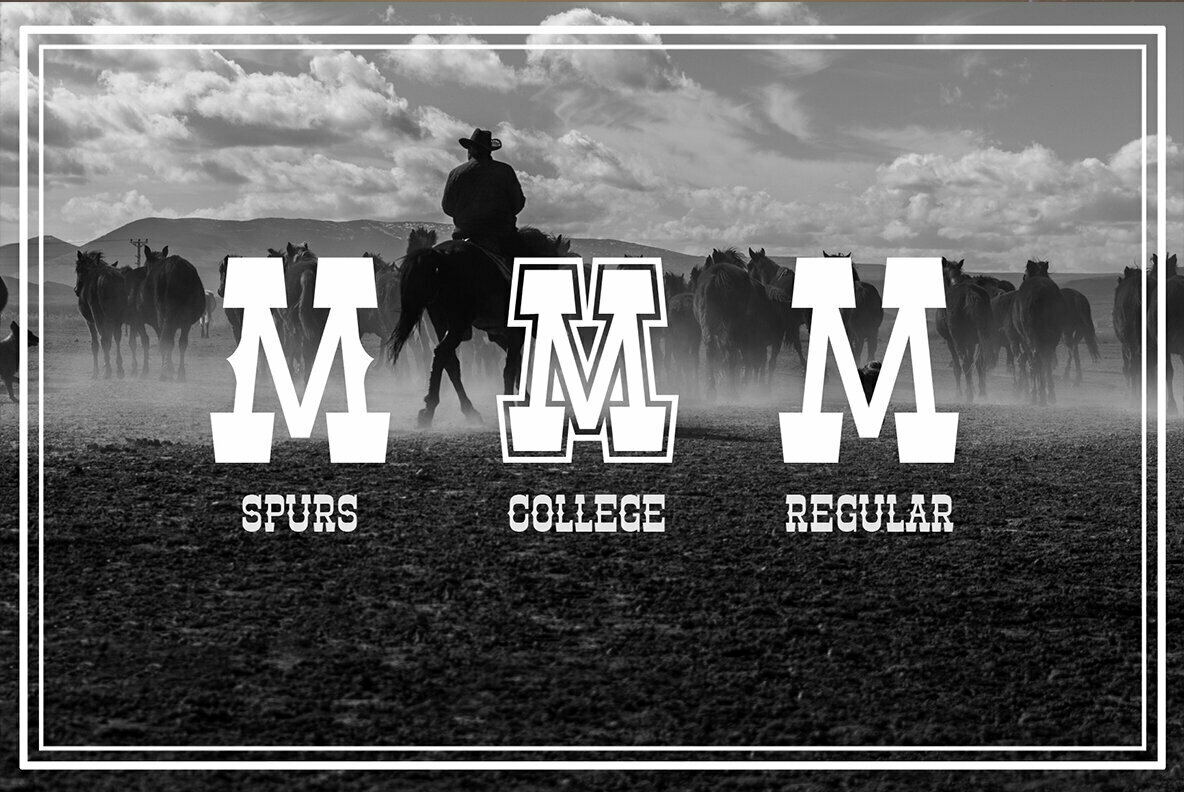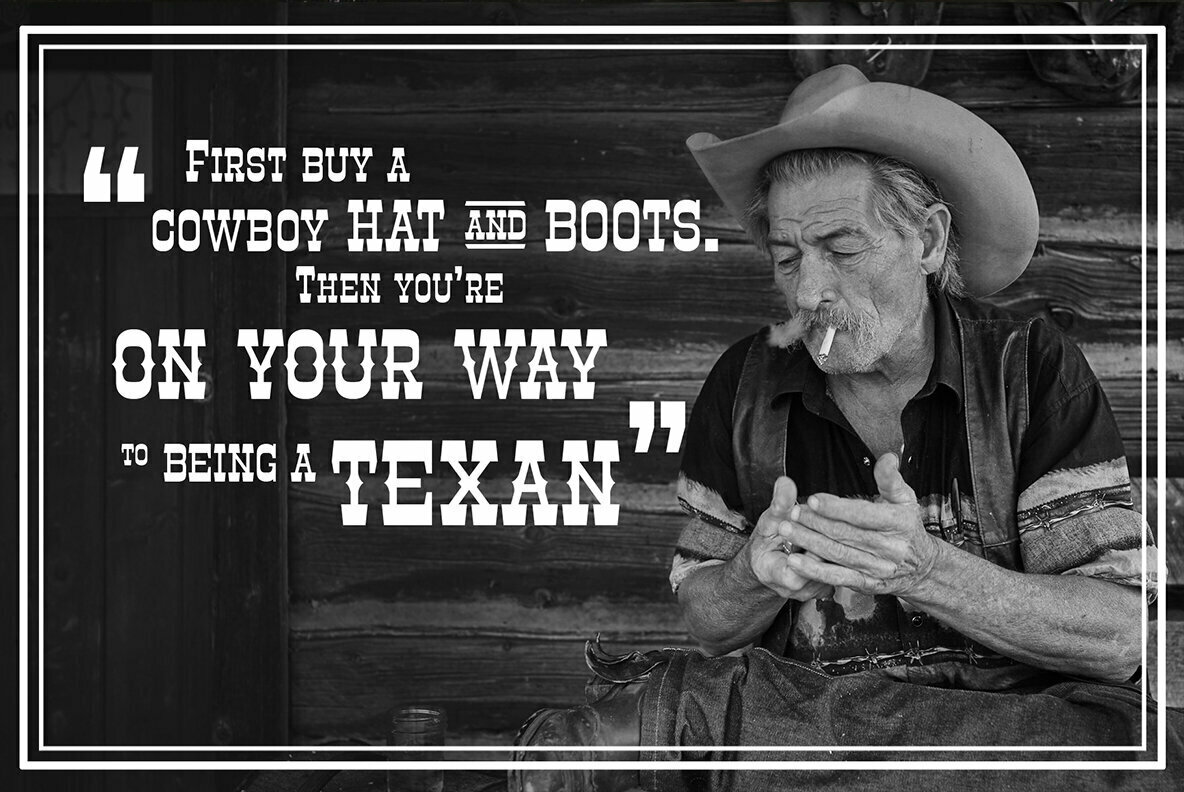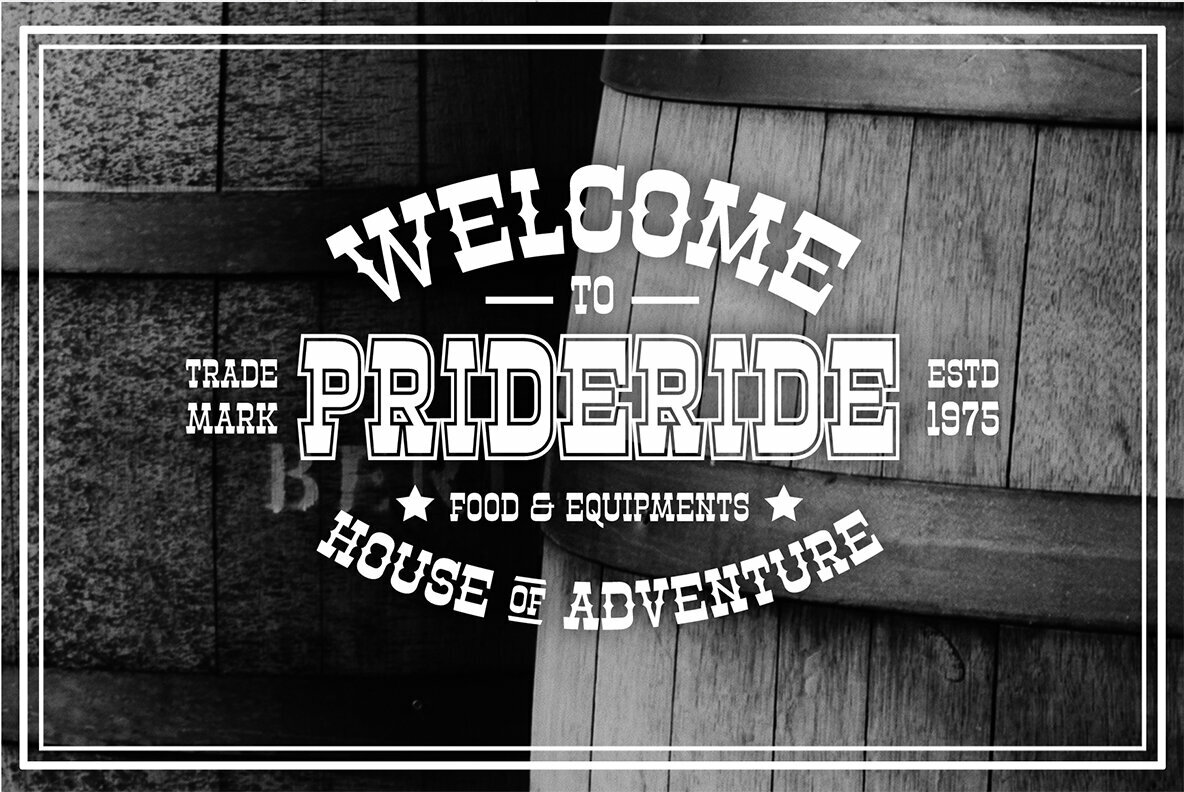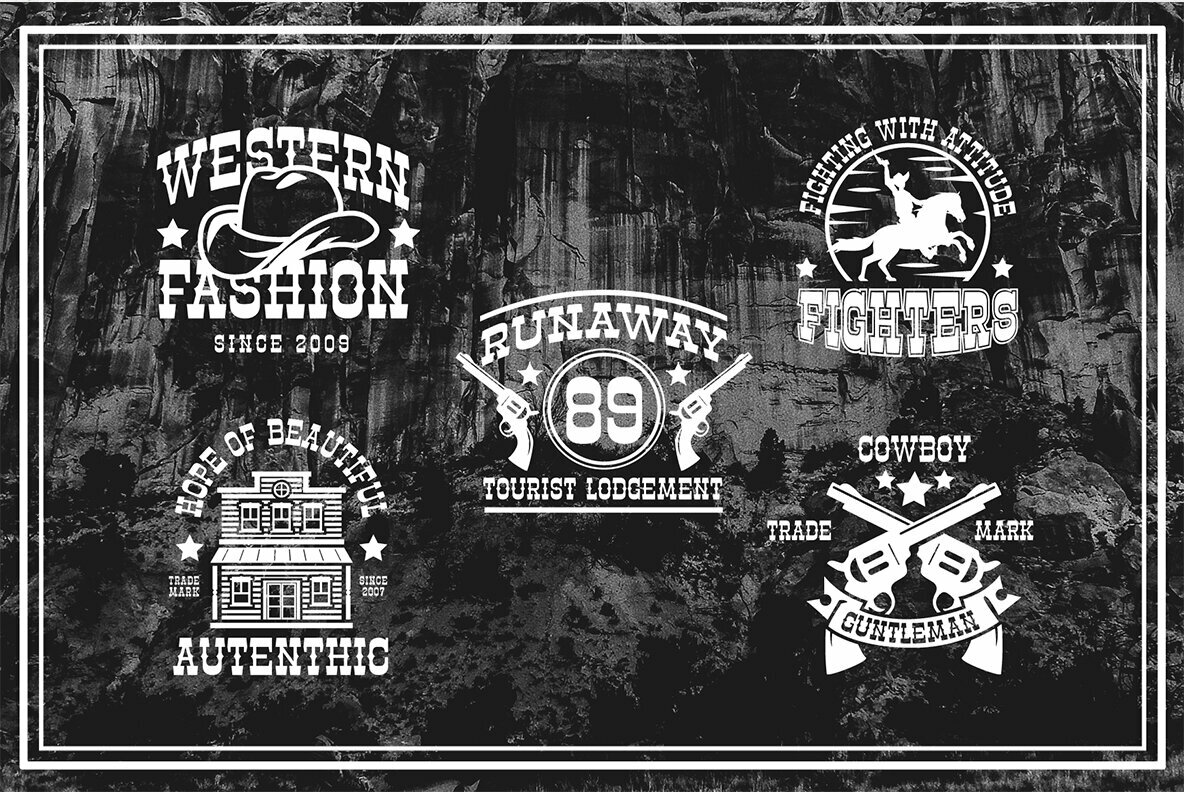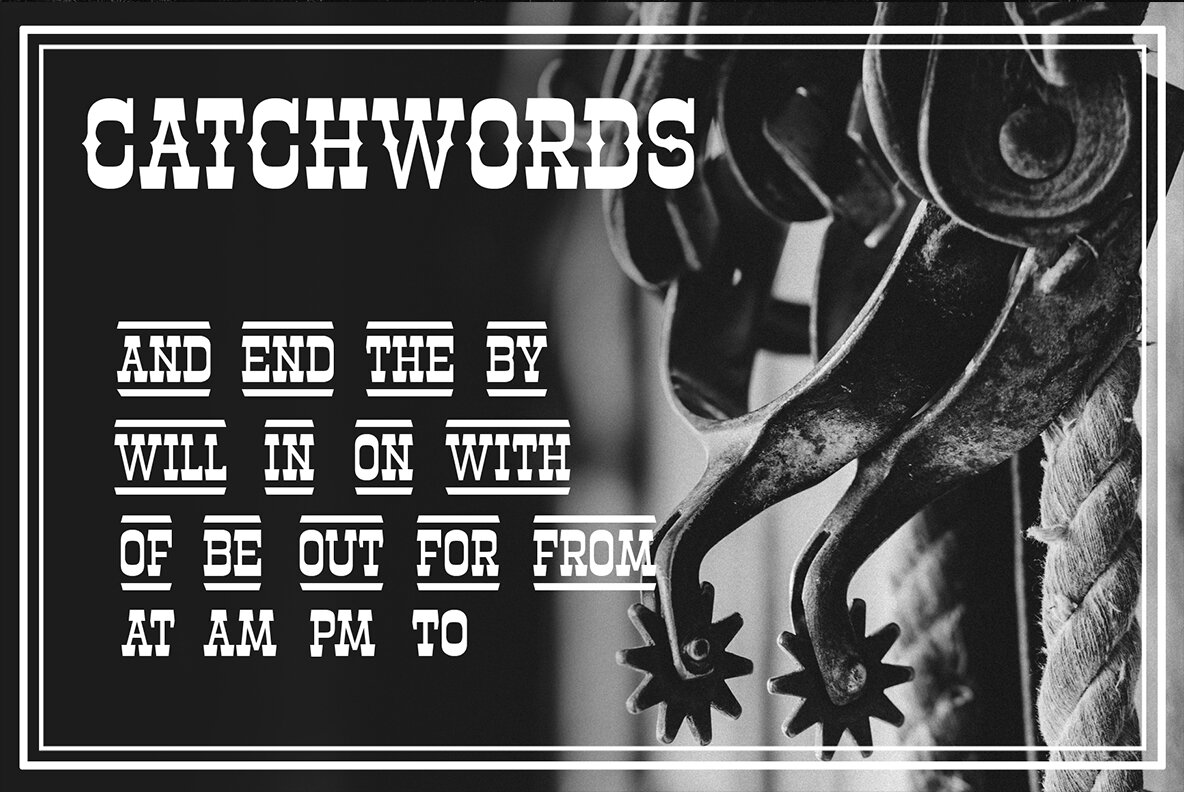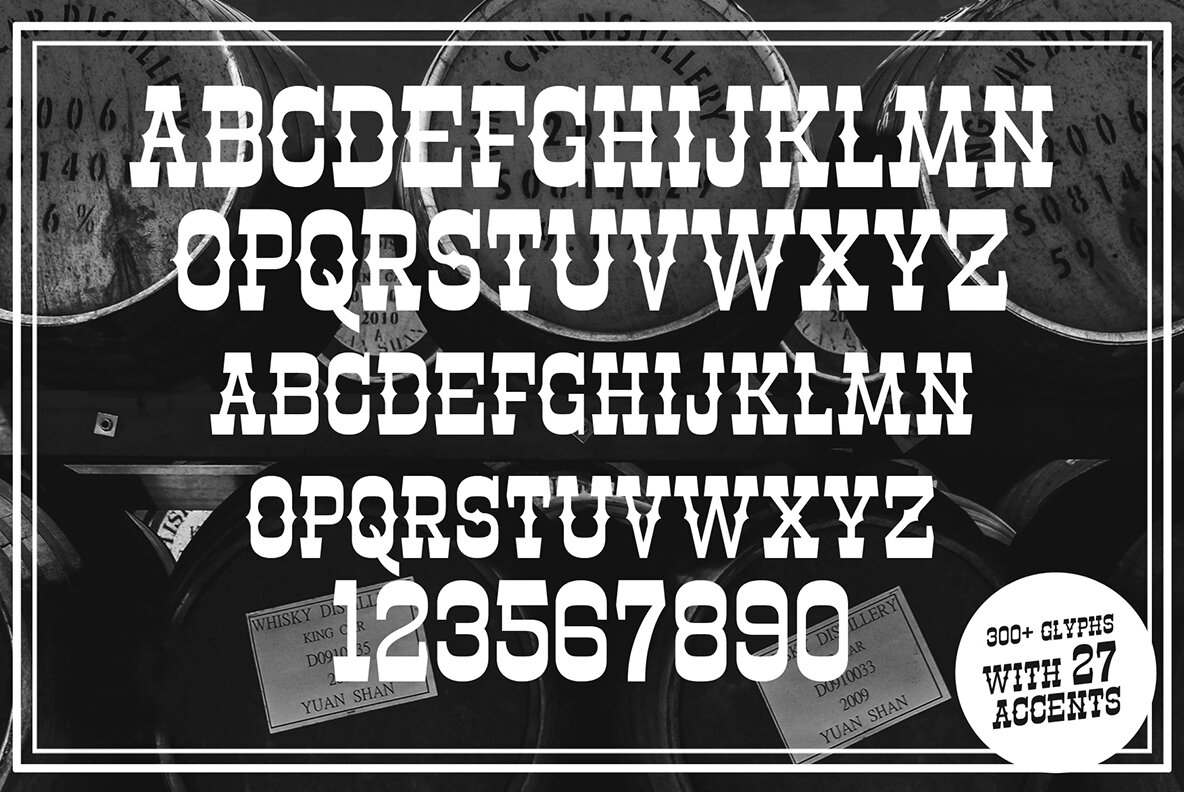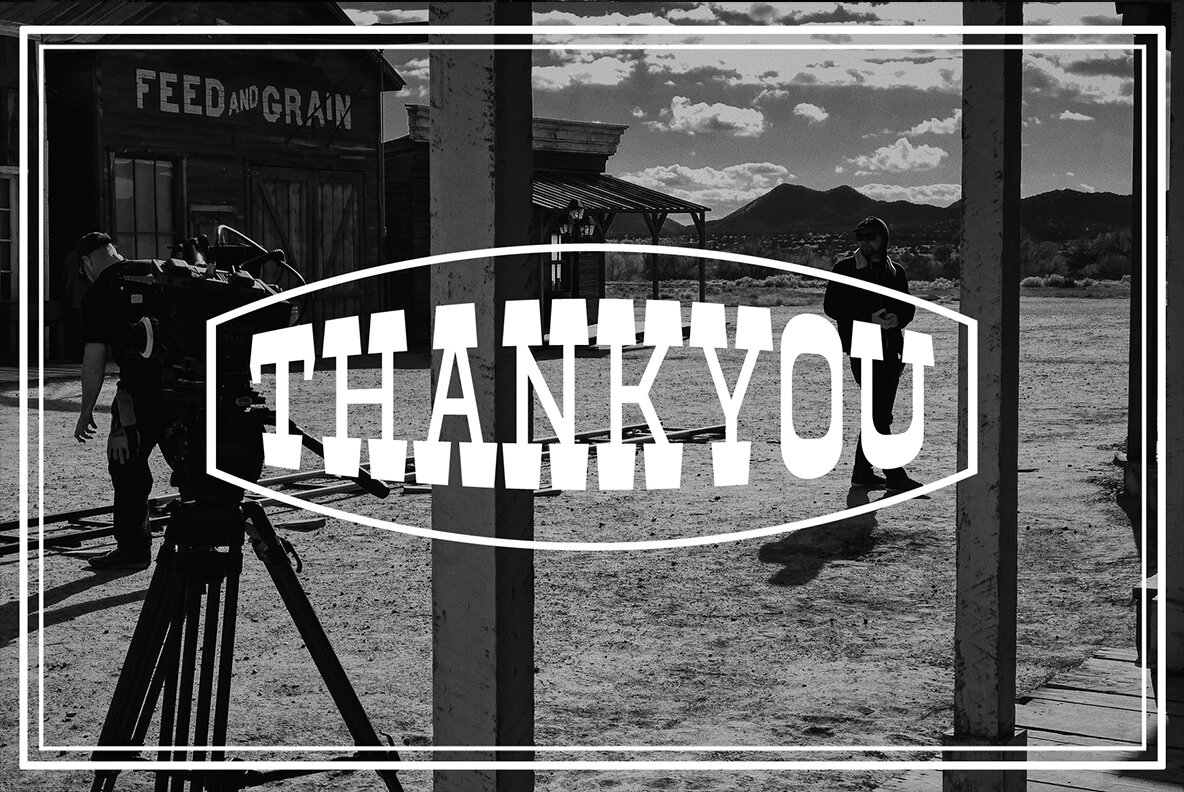
Masterson Font
Masterson, a robust slab serif, draws inspiration from classic cowboy and western motifs. Offering three distinct styles—Regular, Spurs, and College—it presents a versatile typographic toolkit for creative projects. Each style can be seamlessly integrated to infuse a cohesive western flair into your designs. This all-caps font proves indispensable for logos, badges, storefronts, headlines, subtitles, and even body text, due to its carefully crafted shapes ensuring excellent readability at smaller sizes. Masterson is particularly suited for projects embracing themes of western style, vintage, retro, pop art, or minimalism. Features:Masterson: Slab Serif Inspired by Western Aesthetics